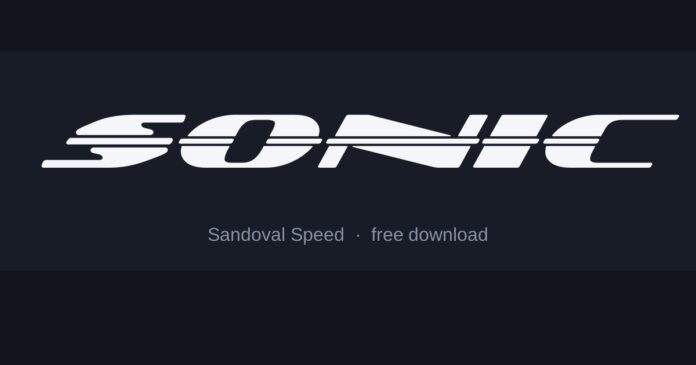
What font is the Sonic logo?
Custom lettering: heavy italic capitals with rounded outer corners and a strong forward lean, usually set inside a coloured panel with a thick outline.
The lean and the outline are doing most of the work — the letterforms underneath are fairly ordinary.
- Sandoval Speed is the closest in feel — a fast italic with rounded weight.
- Motorcade leans harder and reads more like racing, good for a subtitle.
- Mesmerize Ex Bd It is a wide geometric bold italic, cleaner and easier to read at length.
Early nineties game logos borrowed from motorsport and skate graphics, where italics and hard outlines signalled speed on a busy shelf. Sonic’s mark is a direct descendant of that shelf-competition design.
It is why the outline matters as much as the typeface: on a crowded screen, the border is what separates the word from the background.
- Add a thick outline in a contrasting colour, then a second thinner one — the double border is the signature
- Blue fill with a yellow or white edge is the association; other colours lose it instantly
- Lean the whole word rather than relying on the font’s own italic angle
Not exactly. The original lettering was custom drawn or is not publicly licensed, so the fonts here are close recreations. Sandoval Speed is the nearest match we have found.